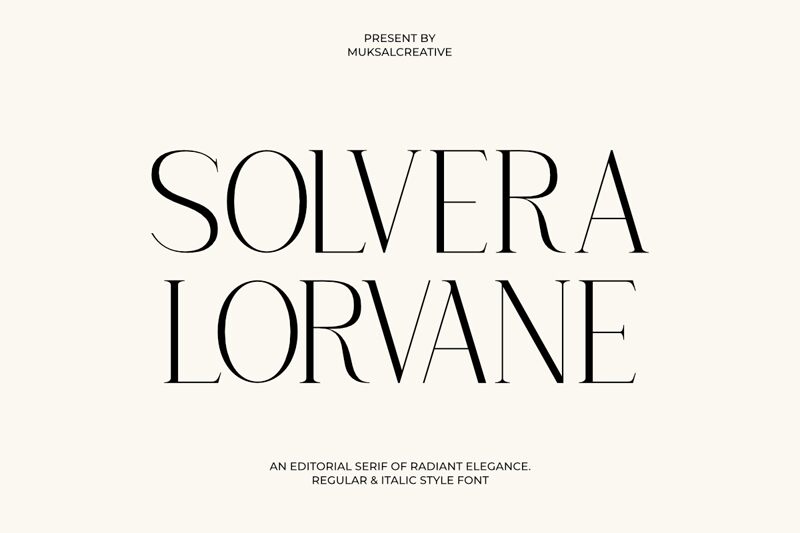
Solvera Lorvane font designed by Muksal Creative is a sophisticated serif font that gracefully mixes modernity with classic refinement. Ideal for editorial projects, it offers sleek lines and artistic flair, elevating any text with an elegant touch. The font is a great choice when you want to add style and character while keeping the overall appearance professional.
Well-suited for branding, posters, invitations, websites, magazines, packaging, or business documents, it delivers a polished impression. Use it for smaller sizes equally as body text and for titles, headings, or in logos. Explore its versatility in your next personal projects.